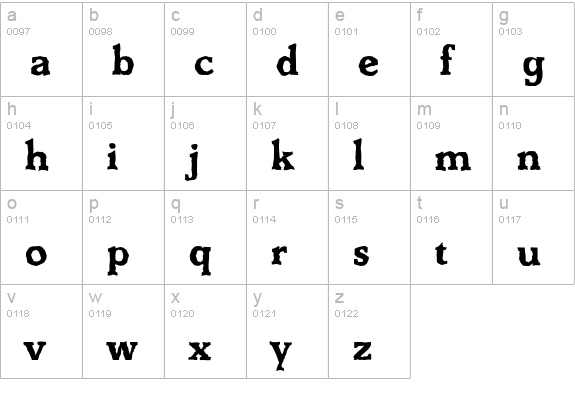
DerringerAntique-Bold Font Details
DerringerAntique-Bold is a strong, high-contrast variant in the DerringerAntique typeface family \xE2\x80\x94 well suited to headlines, attention-grabbing titles, and strong calls-to-action.
DerringerAntique-Bold font is a stunning display typeface that exudes a classic and sophisticated charm. With its bold and commanding presence, this typeface is perfect for making a statement in headlines, titles, and branding materials. The vintage-inspired design of DerringerAntique-Bold font brings a touch of elegance and nostalgia to any project. Best of all, DerringerAntique-Bold font is available for free download at FontsMarket.com. Whether you're working on a poster, logo, or any other design project, this versatile font will add a touch of timeless style. Download DerringerAntique-Bold font today and elevate your designs with its unique character and flair.